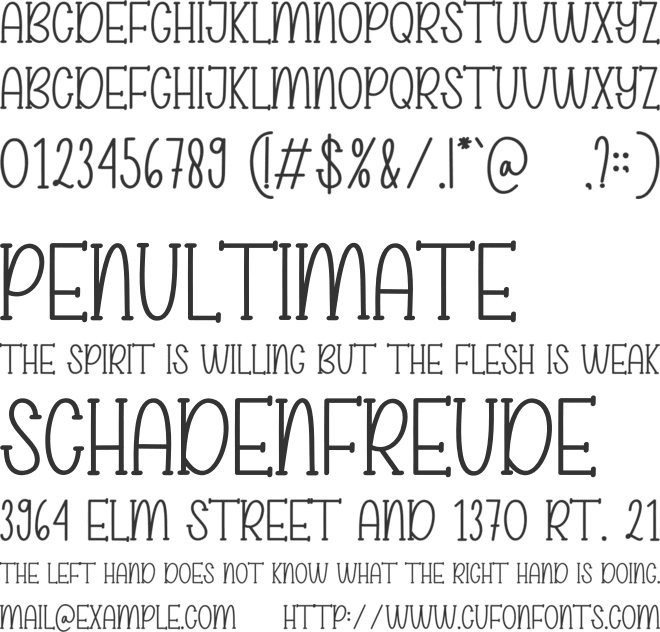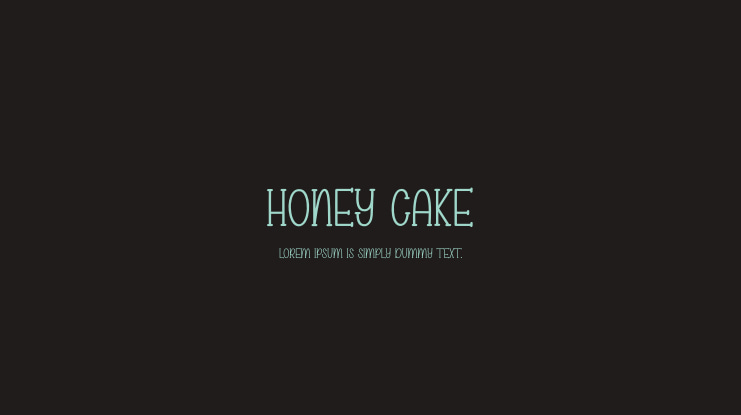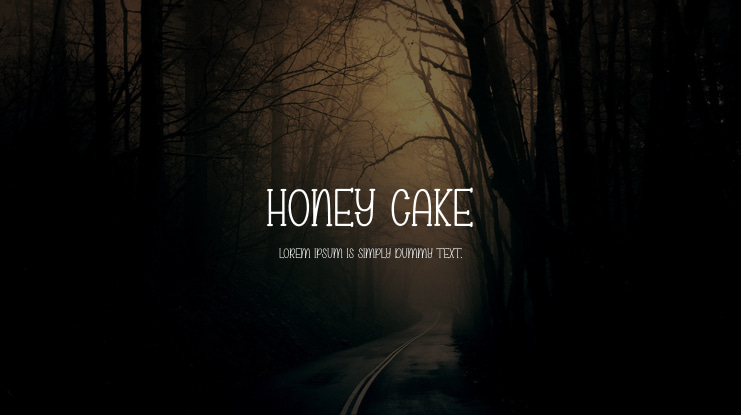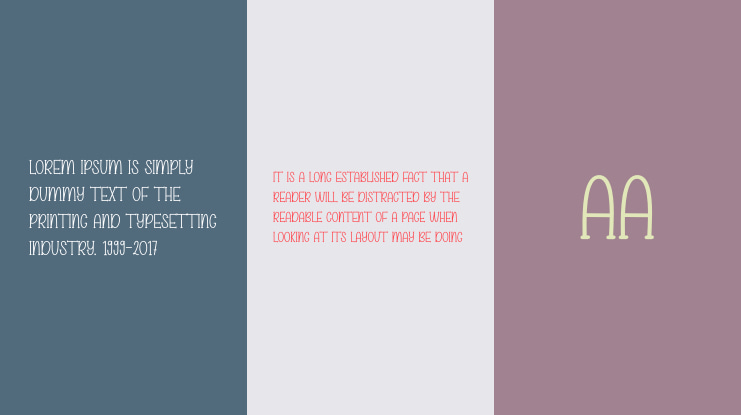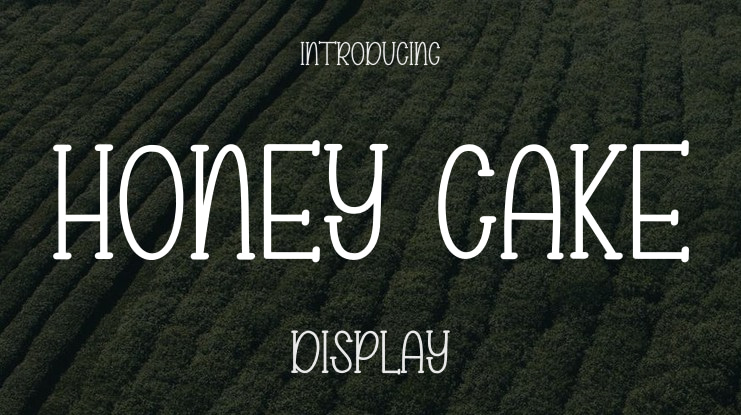
Honey Cake Font
Our latest stylish fonts are ideal for wall displays, wedding invitations, social media logos, advertisements, packaging, product design, labeling, photography, watermarks, invitations, stationery, and any project that requires elegant handwriting.